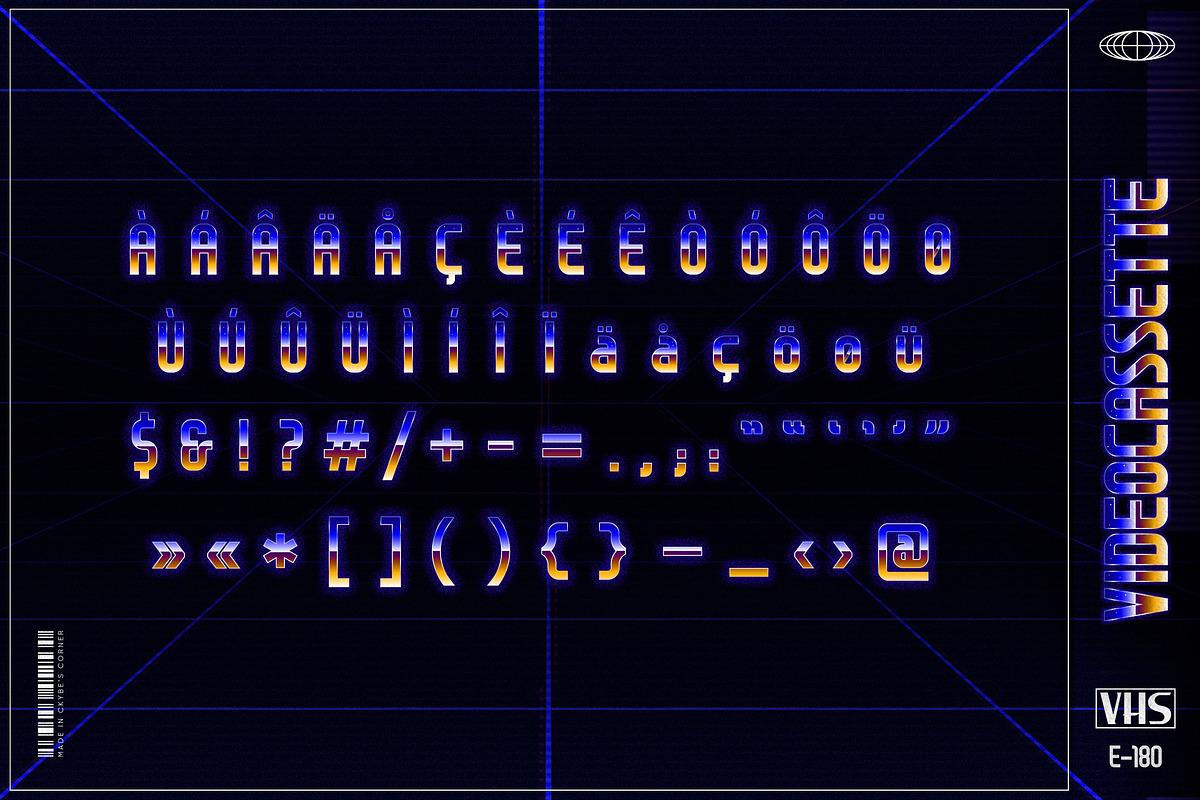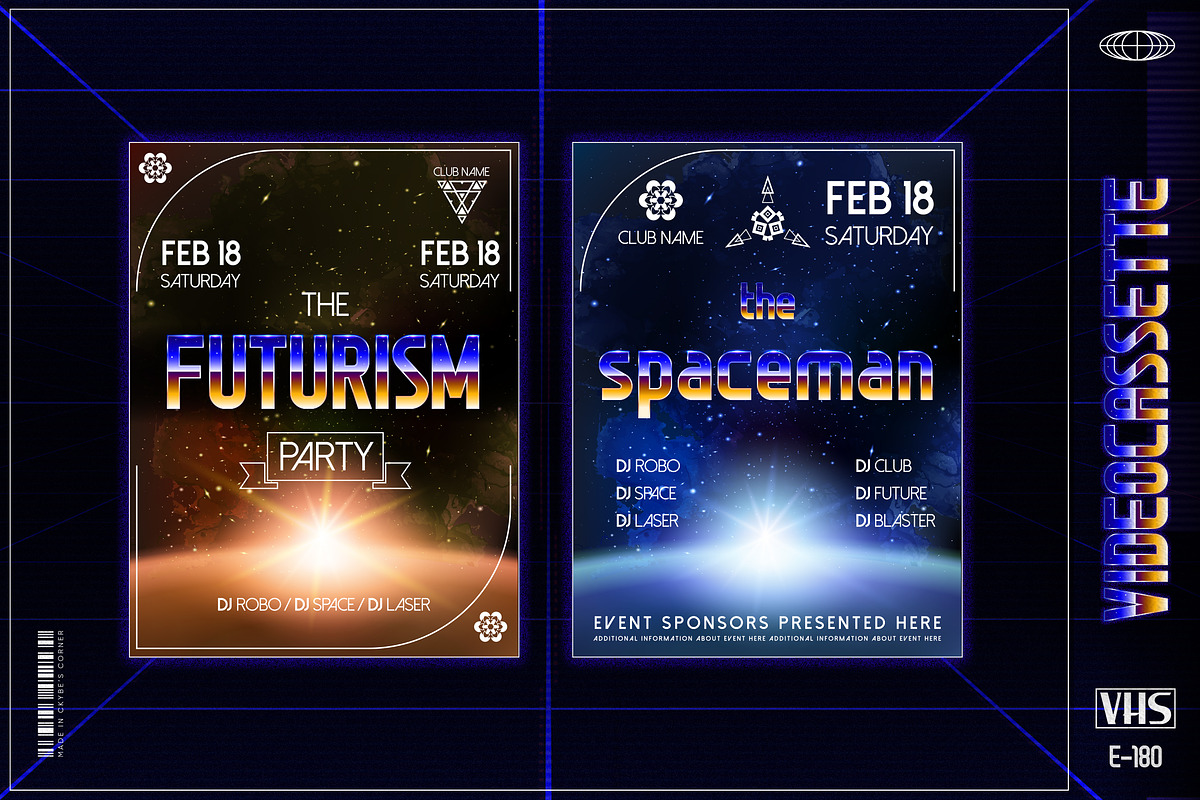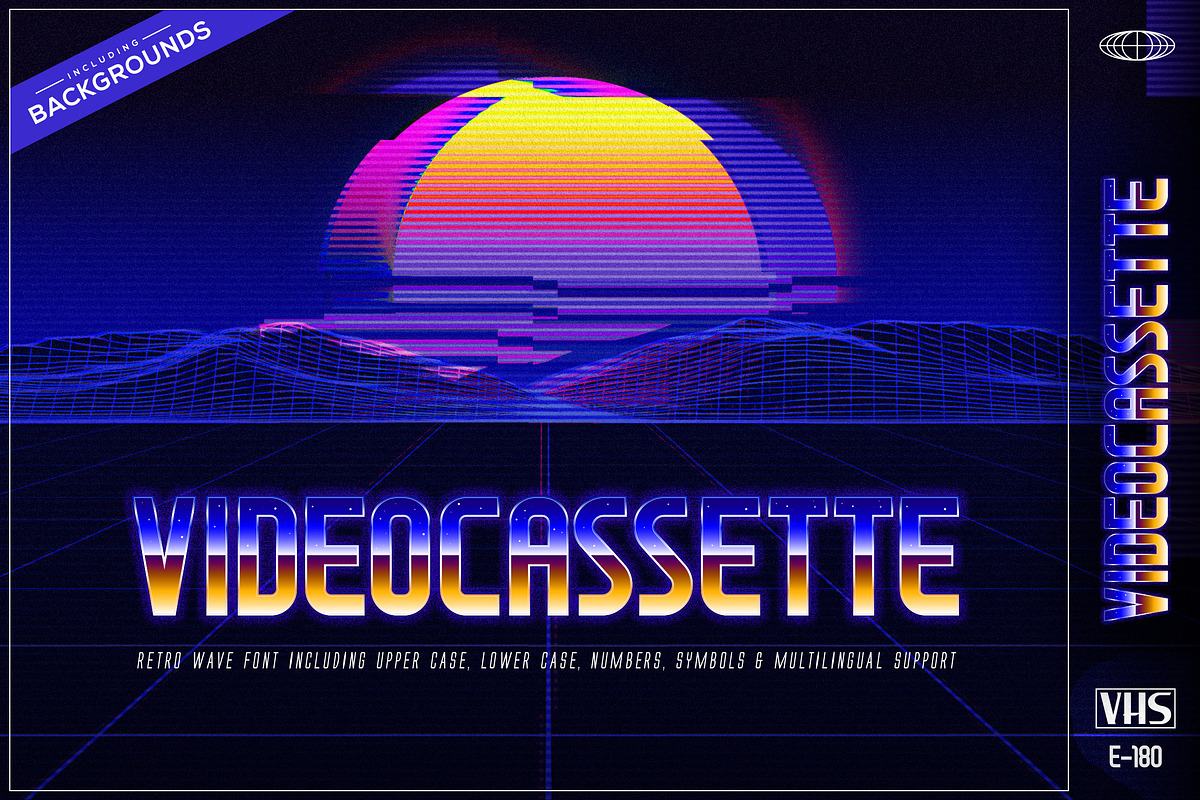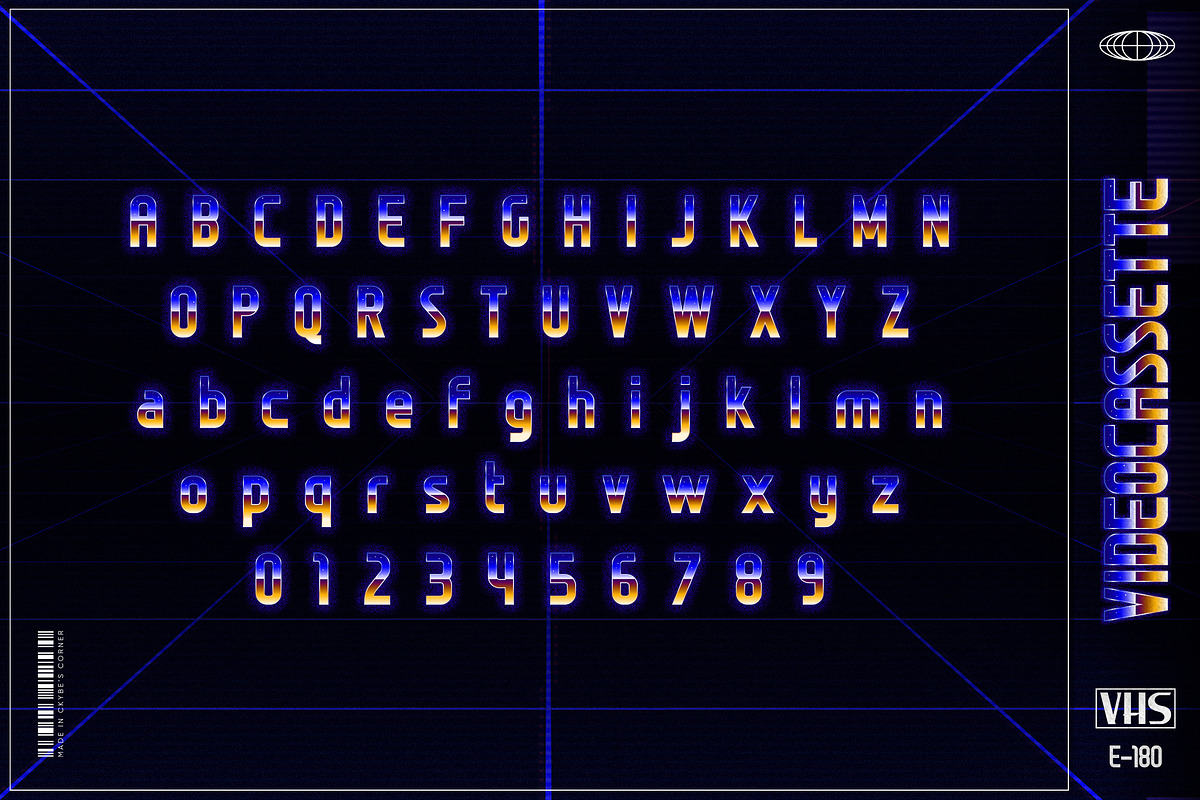
Videocassette - Retro Wave Font
Remember the time when you had VHS tapes with your favorite movies on your shelf, and CDs and Laser Discs were on top of technology progress? This pack contains Videocassette trendy vaporwave, synthwave, retrowave styled Color OpenType Font in .OTF file format with upper case, lower case, symbols, numbers and multilingual symbols (Adobe Illustrator / Photoshop 2018+). Also this pack contains 4 additional retro futuristic backgrounds + 2 sample flyers. Each letter and number also introduced in big size PNGs and PSD's with transparency.